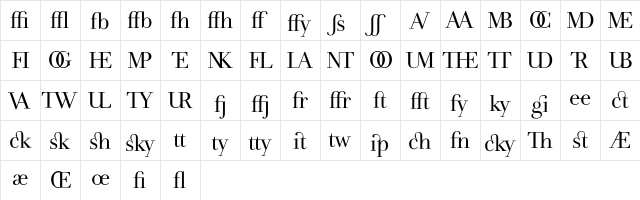
AndradeLigatures Regular
Design Context for AndradeLigatures Typeface
AndradeLigatures takes a measured approach to typography — its balanced proportions and neutral character make it a reliable workhorse for both digital and print work.